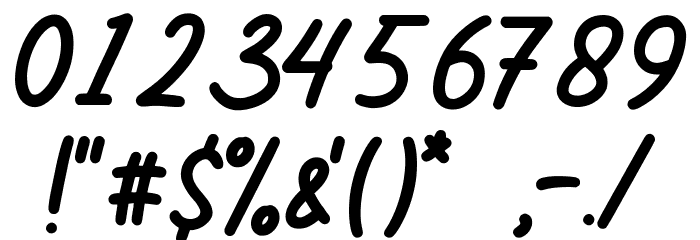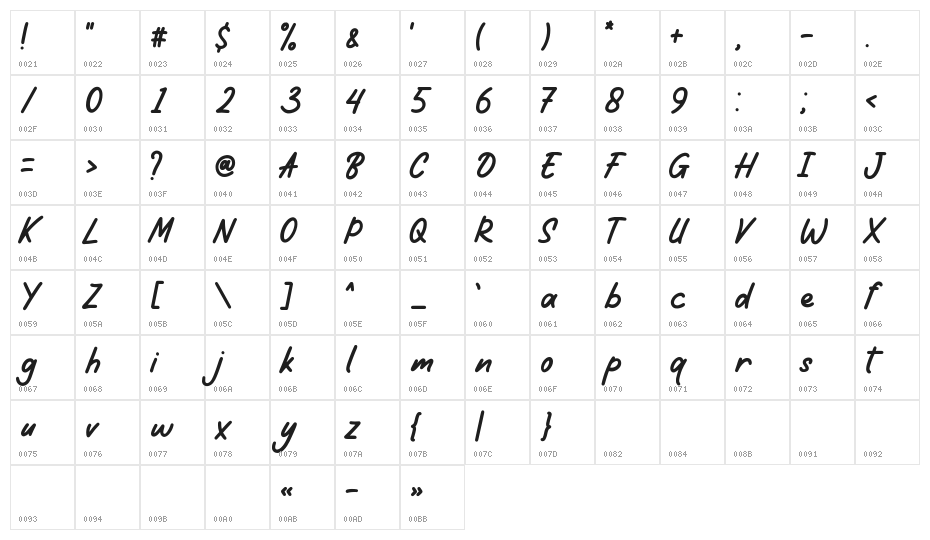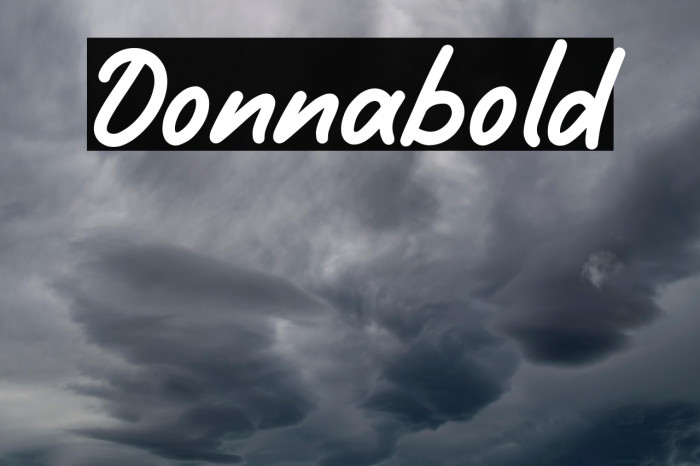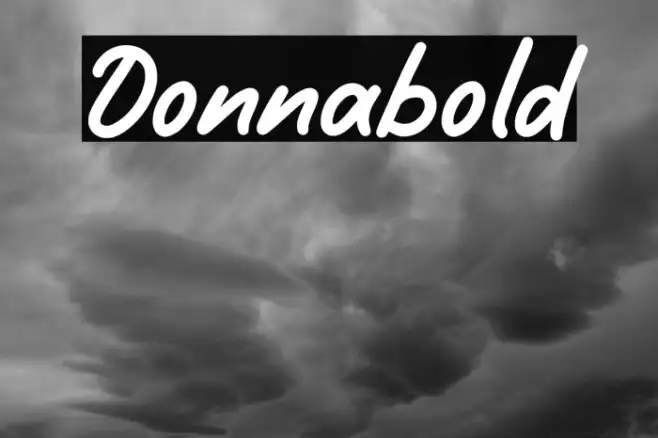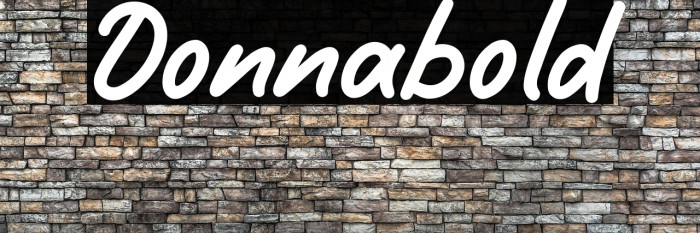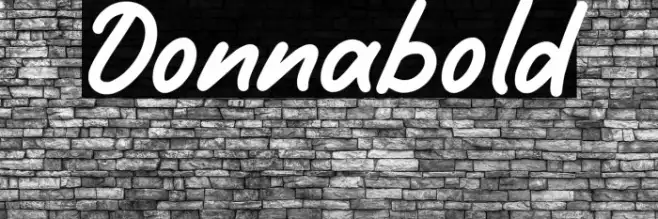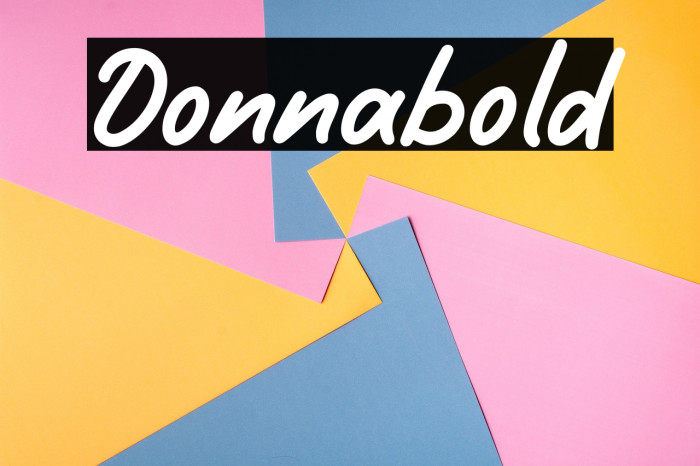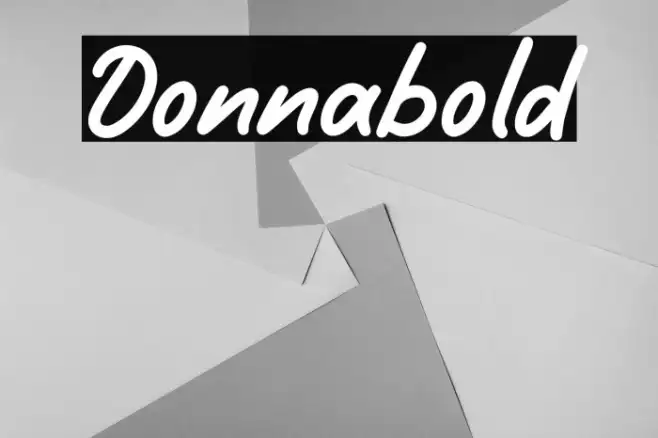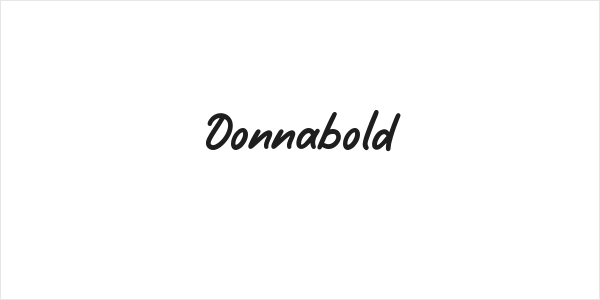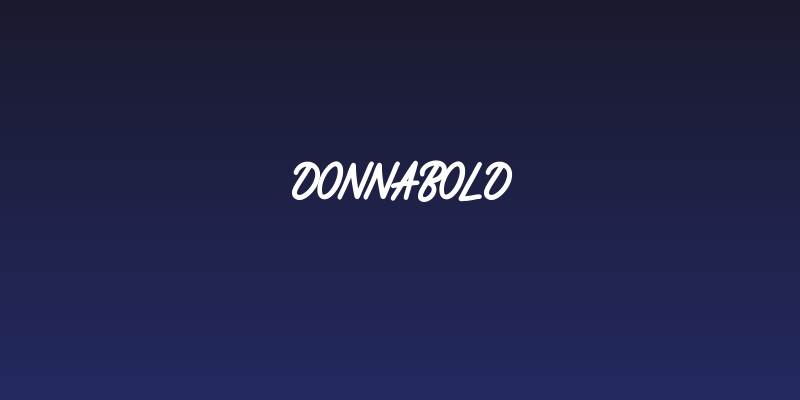
Donnabold Font
Donnabold Description
This font exudes a playful and energetic vibe with its bold, handwritten style. The letters are slightly slanted, giving a sense of motion and dynamism. The strokes are thick and consistent, providing a strong visual impact. The uppercase and lowercase letters maintain a cohesive look, while the numerals and special characters integrate seamlessly into the overall design. This font is perfect for projects that require a personal touch, such as invitations, greeting cards, or branding materials that aim to convey friendliness and approachability.
| Proposed Projects | Ideal for invitations, greeting cards, branding, and any project needing a personal touch. |